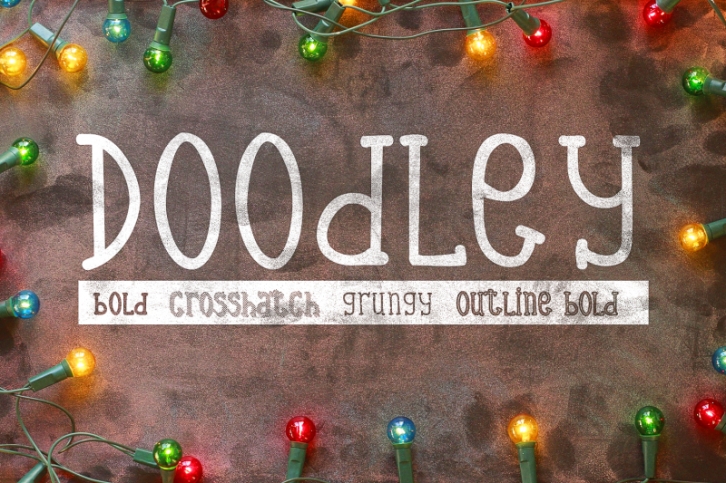
Doodley Font Family: 5 Handcrafted Fonts Download
Doodley is a handcrafted font and it comes in Regular, Bold, Grungy, Shadow, Crosshatch and Outline Bold. It's perfect for invitations, brochures, t-shirts, tote bags, mugs, or pretty much anything that has a surface.
This font comes with A-Z all-caps letters, 0-9 numbers and punctuation.